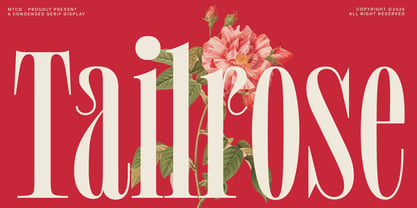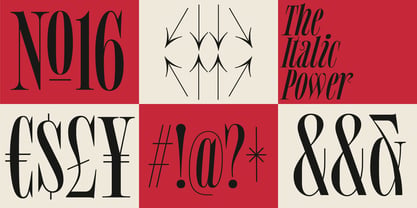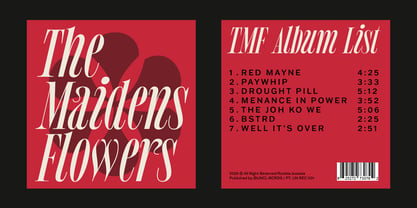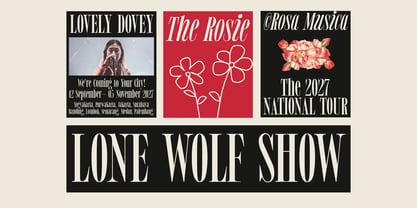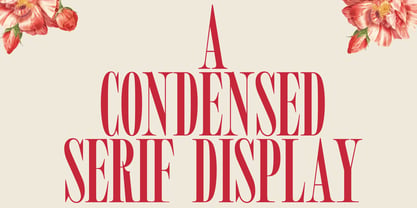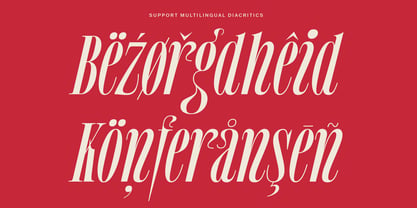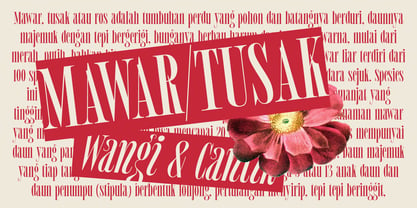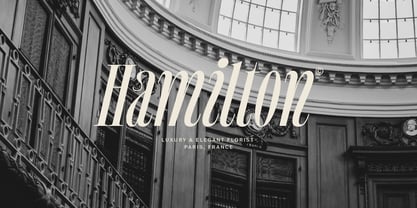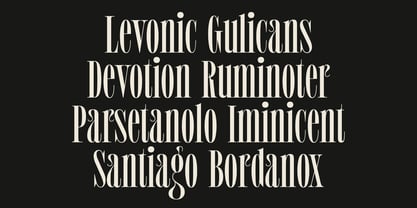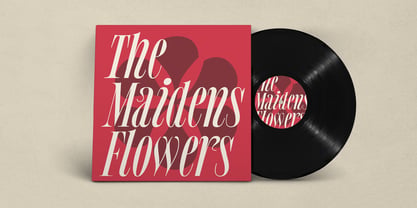
MTC Tailrose
by Martype co
The MTC Tailrose Font Family was designed by Umar Al Farouq and published by Martype co. MTC Tailrose contains 2 styles and family package options. More about this family
Introducing MTC Tailrose, a quirky high-contrast serif that embodies luxury elegance and the didone tradition. Tailrose is designed for those who want their typography to feel alive. Each letterform showcases its own unique personality, with long, sweeping tails on the a, r, c, s, and g that impart a curvy, handcrafted warmth, perfectly balancing its sharp, editorial contrast. Envision classic magazine headlines or antique label designs that evoke a sense of timeless luxury. This font is expertly crafted for bold headlines, large-scale poster designs, and elegant logotypes. Whether you are developing a vintage brand identity, designing a boutique label, or creating editorial layouts infused with earthy, curated luxury vibes, Tailrose is the ideal choice. This font is perfect for boutique branding, luxury packaging, vintage-inspired editorial projects, feminine brand identities, wedding stationery, craft product labels, and premium poster design.
Designers: Umar Al Farouq
Foundry: Martype co